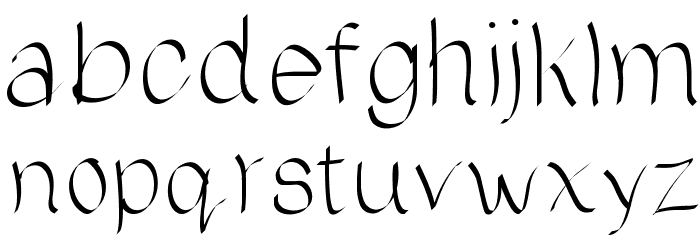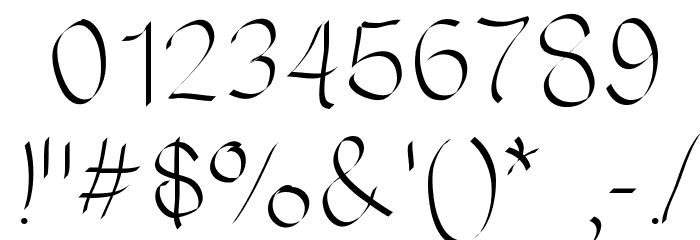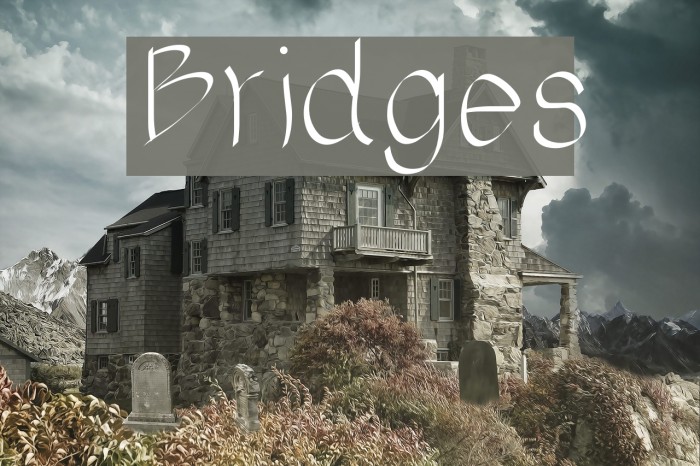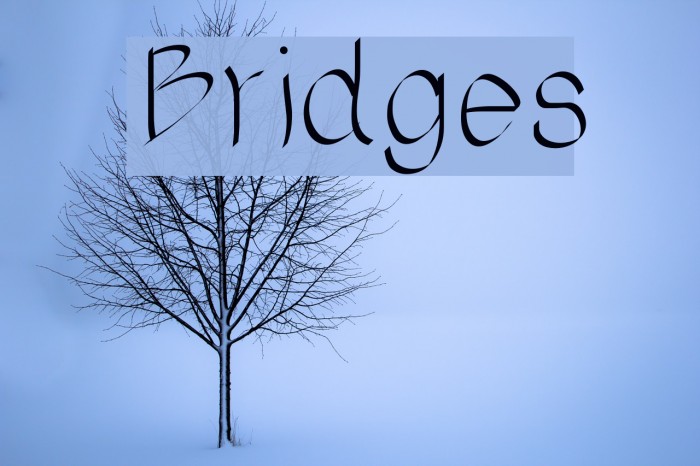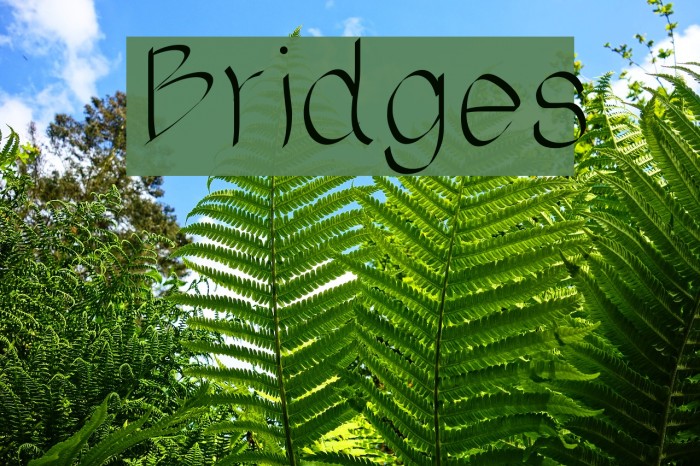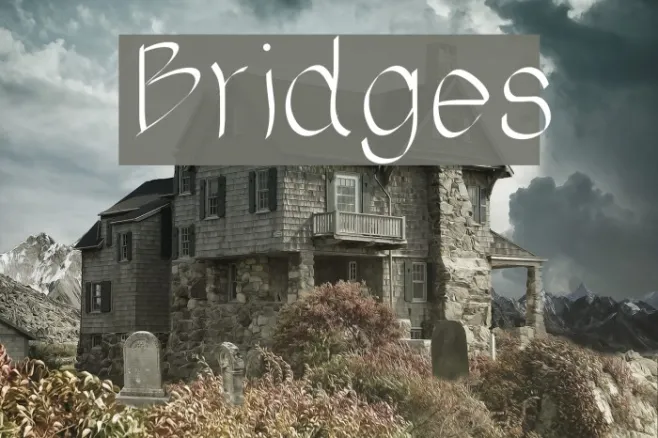
Bridges Font
This font features a unique and artistic style with a handwritten appearance. The characters exhibit a playful and whimsical design, characterized by varying stroke thickness and a slightly irregular baseline. The uppercase letters are tall and slender, while the lowercase letters maintain a consistent flow, enhancing the font's organic feel. Numbers and special characters are crafted with the same artistic flair, making the font versatile for creative projects. The overall design is both modern and expressive, suitable for adding a personal touch to any text.
A whimsical, handwritten-style font with varying stroke thickness and an artistic flair.
- Proposed Projects: Ideal for greeting cards, invitations, artistic posters, and branding materials that require a personal and creative touch.
- Overall Style: Modern, Artistic
- Use Case: Logos, Headlines, Creative projects